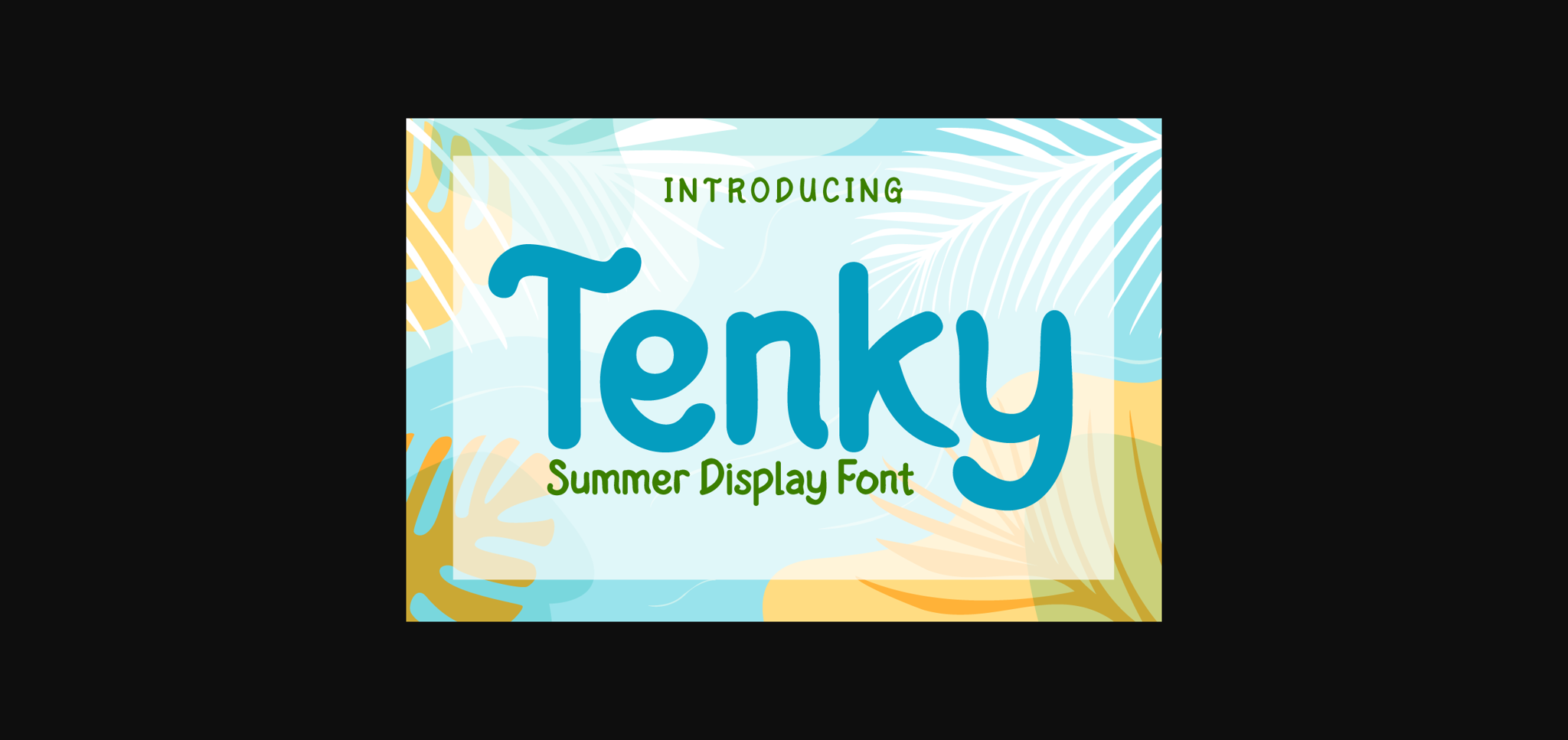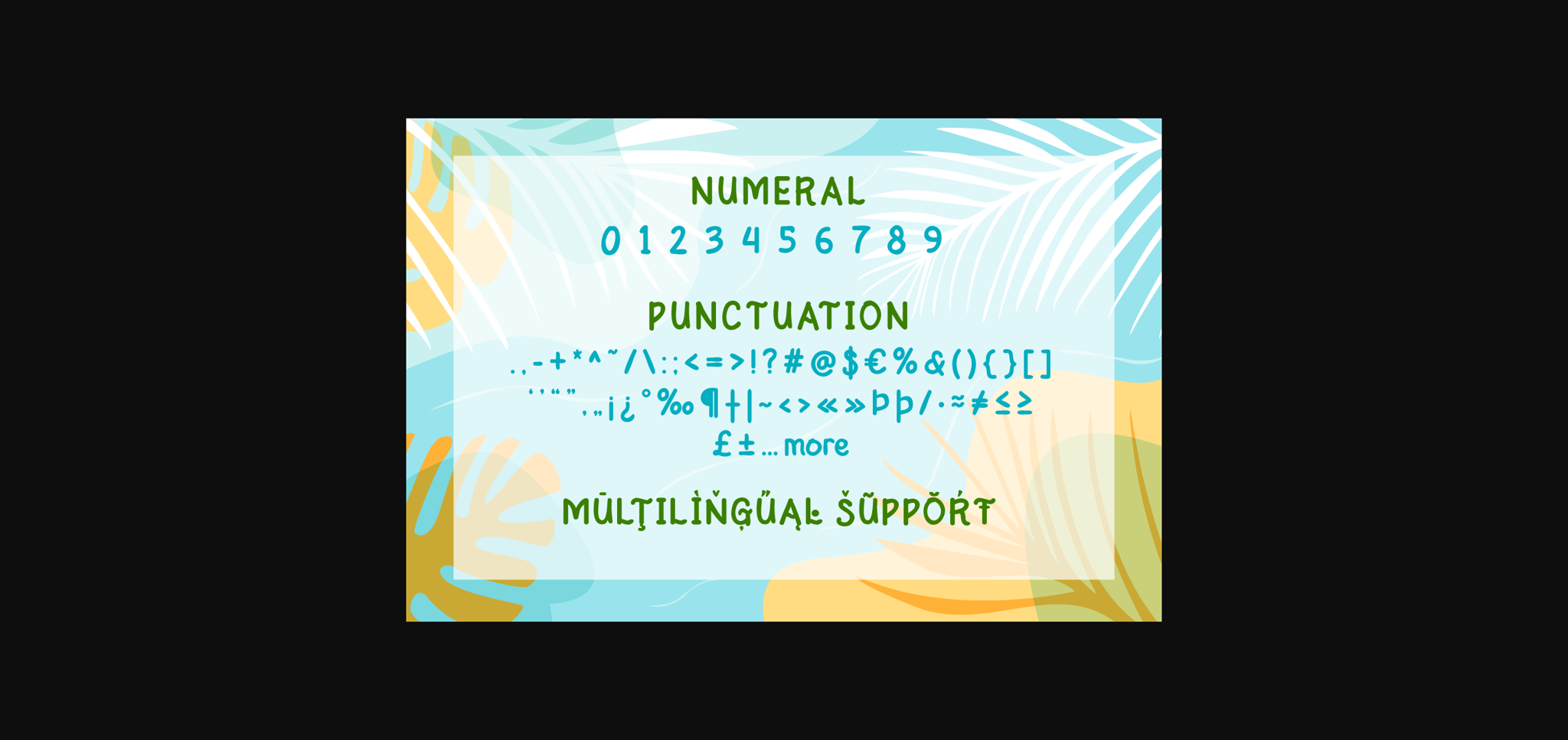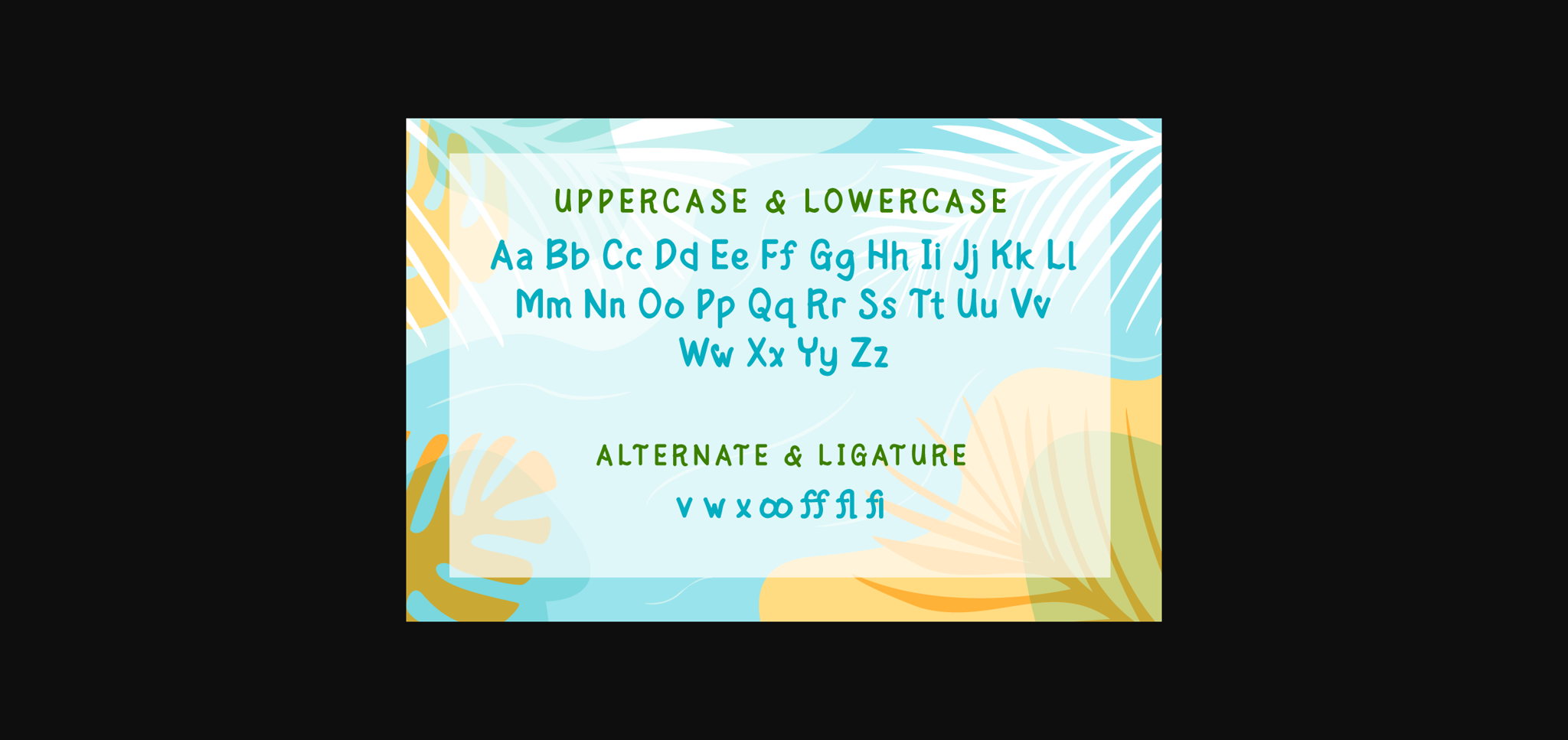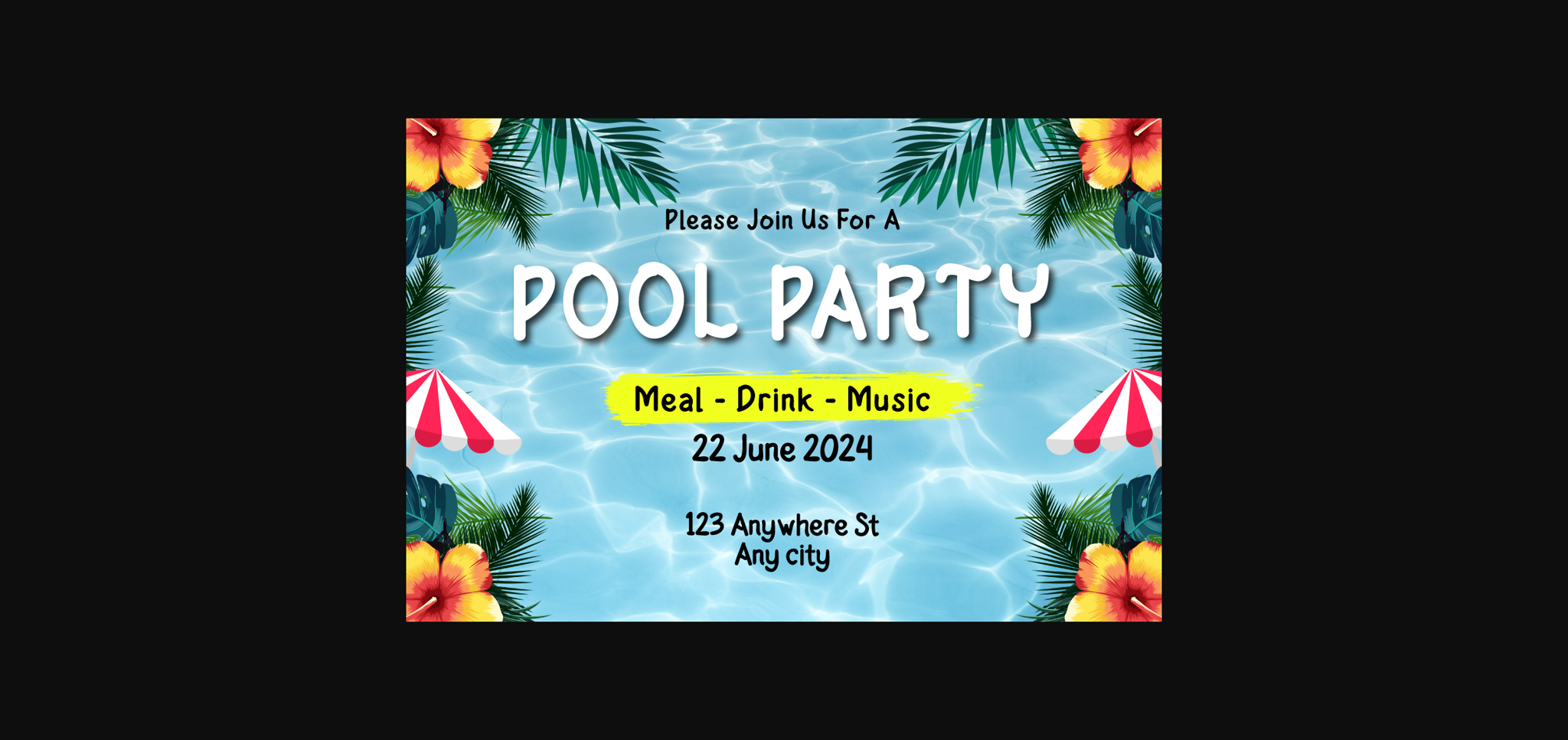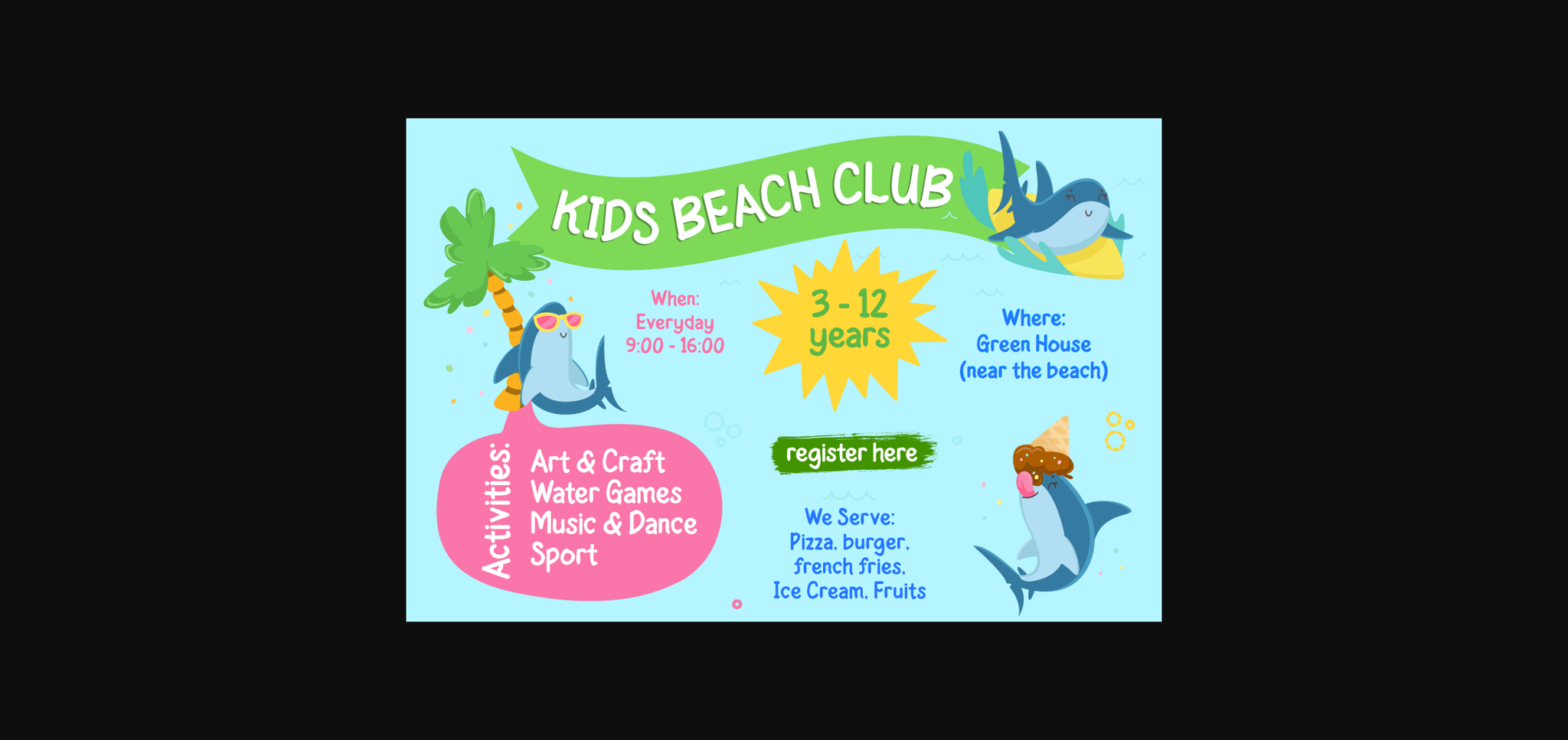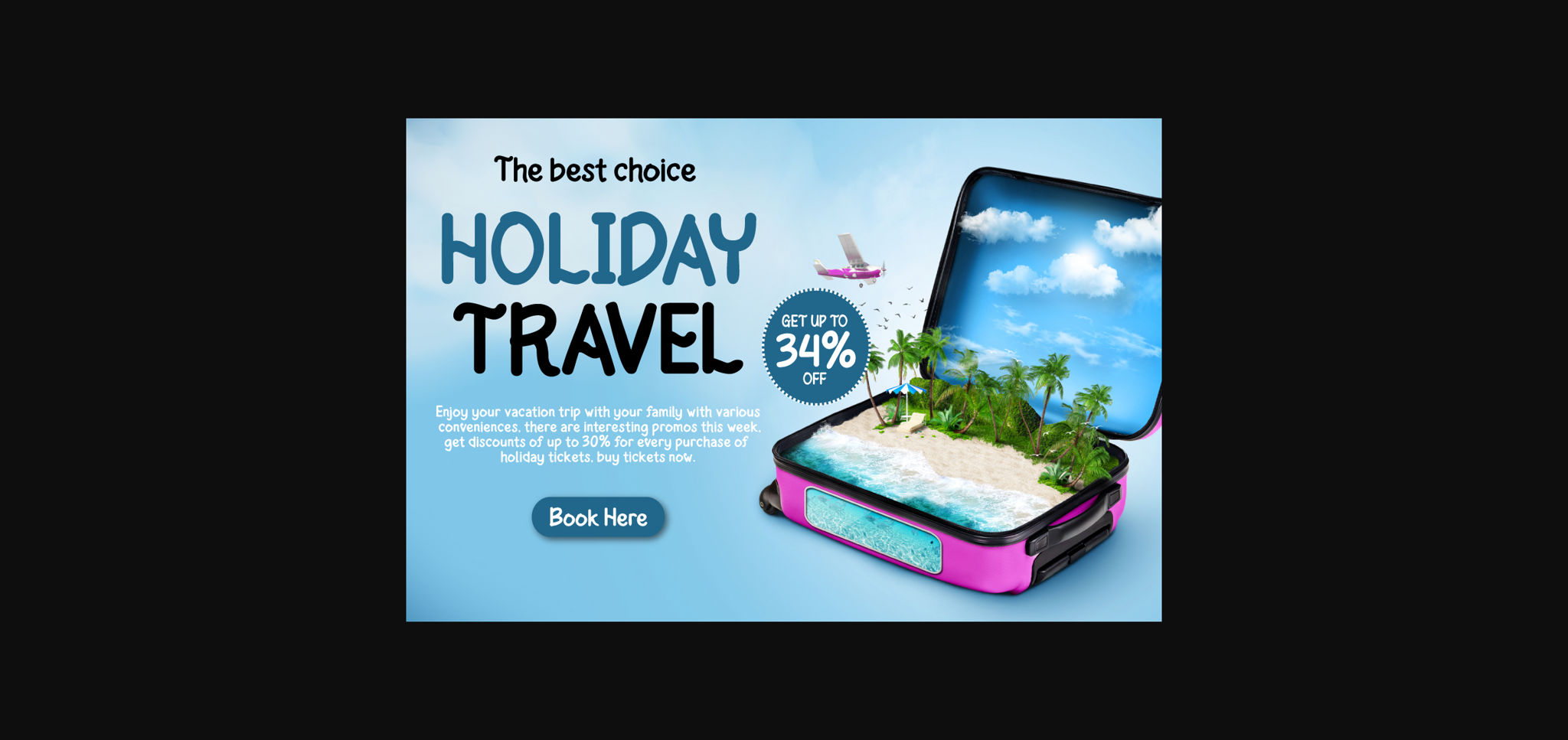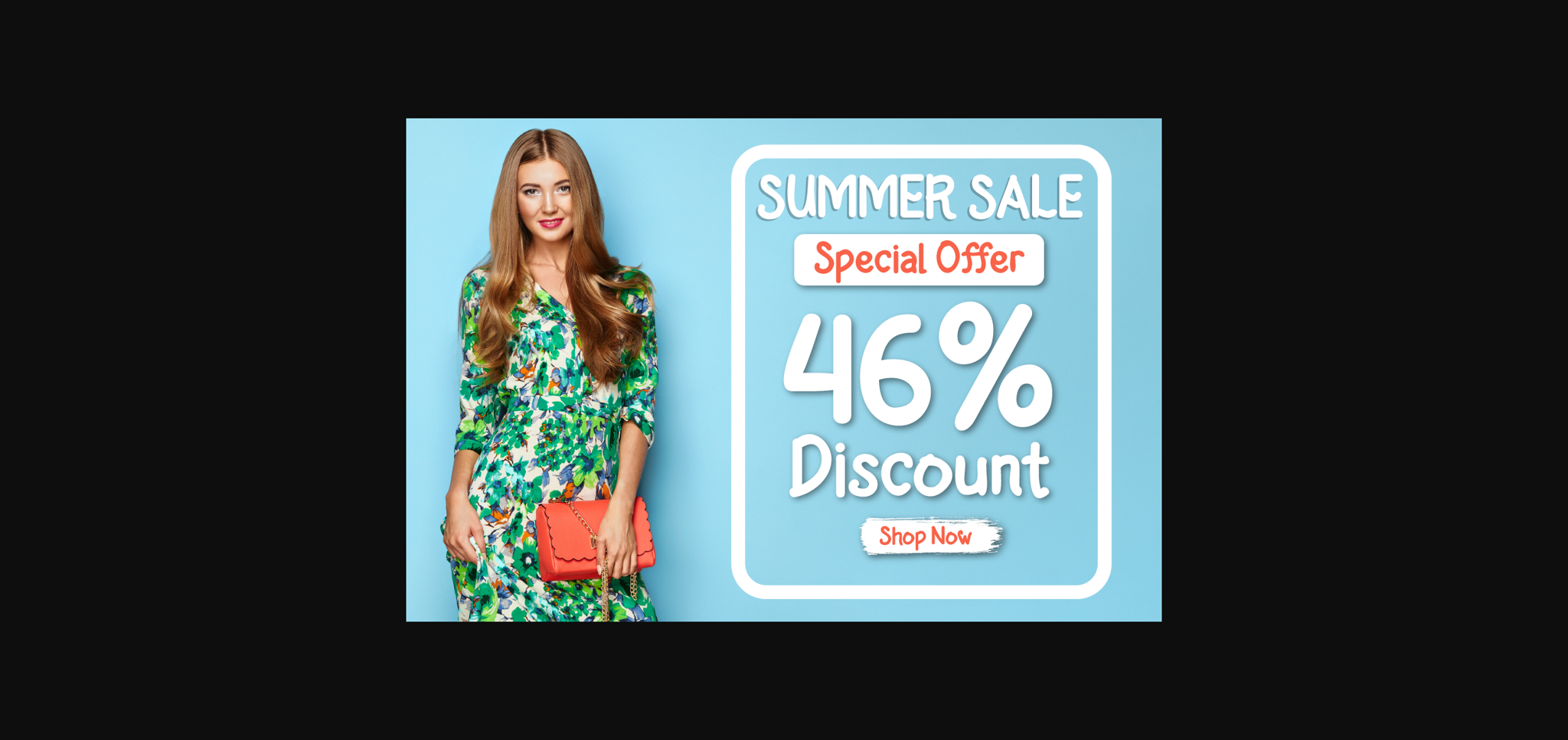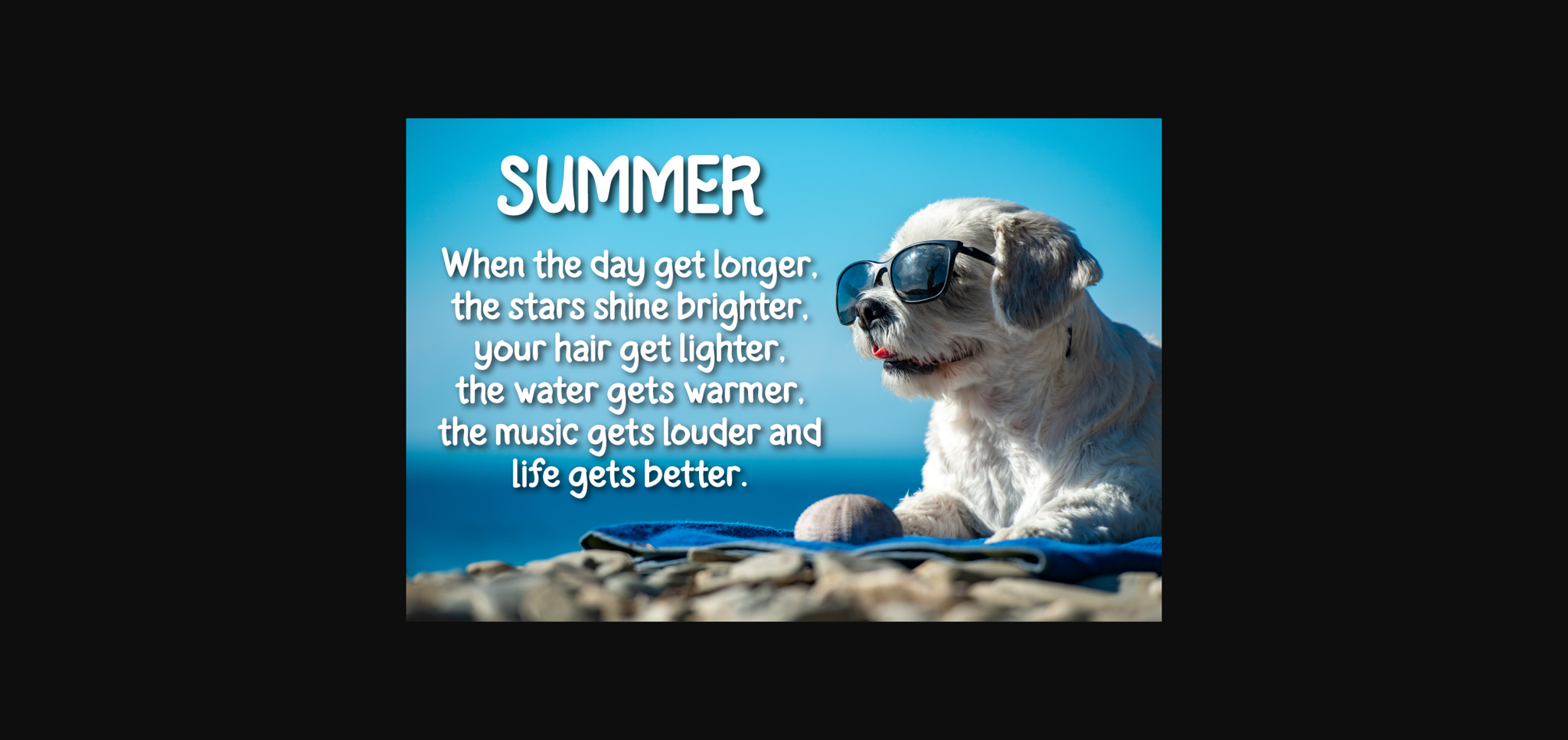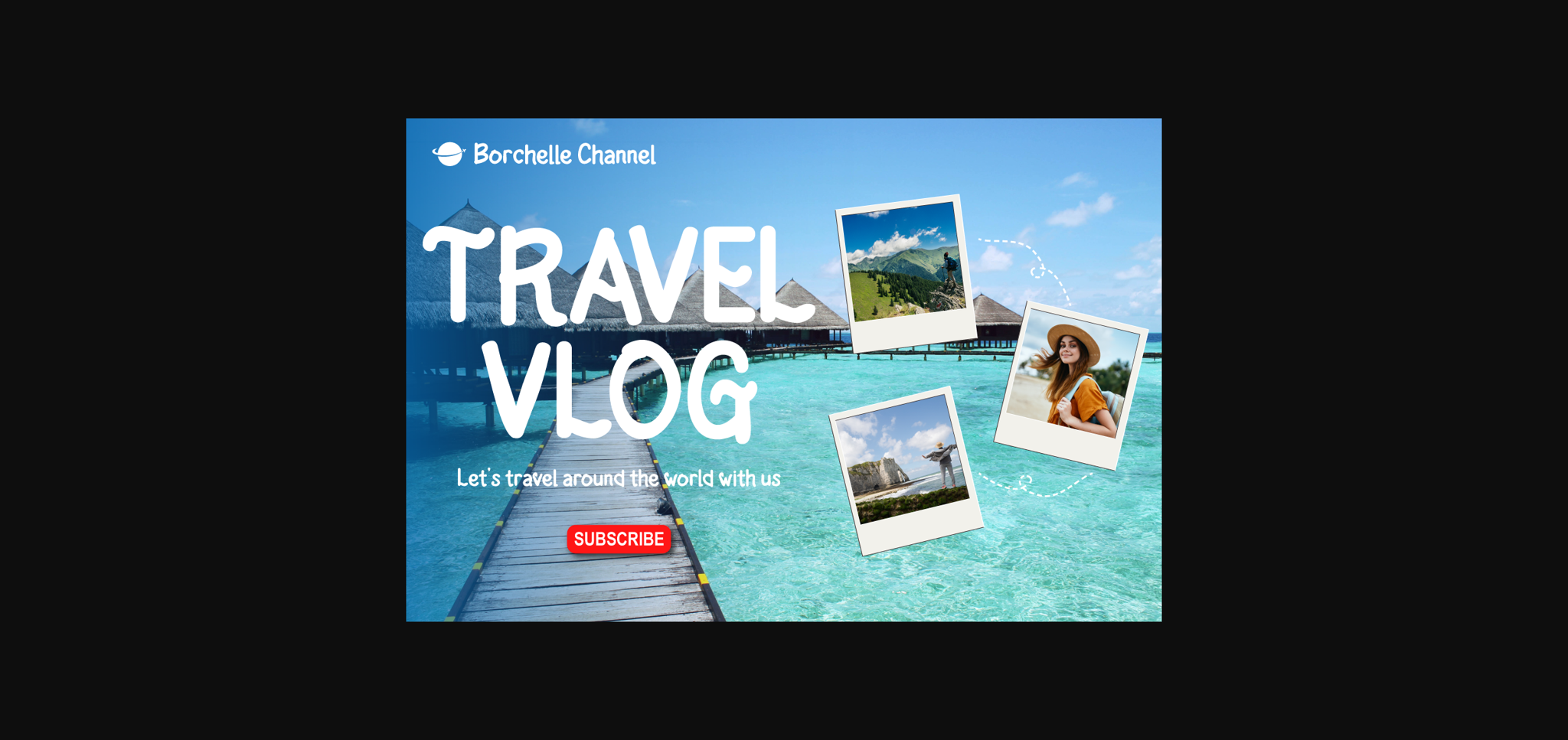
Tenky Font
About Tenky Font
Introducing “Tenky Font” – Embrace the Essence of Summer.
Tenky Font embodies the spirit of summer in every stroke. With its refreshing summer theme, this font brings the warmth and vibrancy of the season into your creative projects. Whether you’re designing beach party flyers, tropical-themed banners, or anything under the sun, Tenky Font effortlessly captures attention and infuses your designs with the joyful essence of summer.
Crafted with meticulous detail, Tenky Font radiates the energy and sunshine of the season, creating an immediate connection with your audience. Its versatility knows no bounds, making it a perfect fit for a wide range of applications, from vacation postcards to festival posters. Tenky Font elevates your text with its playful and breezy characters, giving your designs a carefree and inviting look. Plus, it supports various languages, ensuring it resonates with a global audience.
Capture the essence of summer in your creative projects with Tenky Font. Explore this delightful typeface today and let your designs shine with the warmth and spirit of the season.